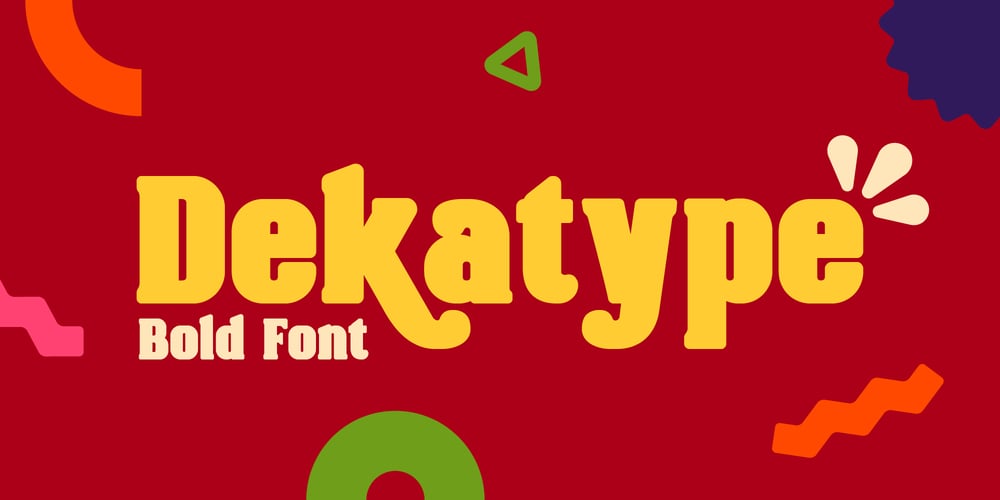
Dekatype Font Family was designed by Manzur Ghozaali and published by Ghozai Studio. Dekatype contains 6 styles and family package options. Datatype is a font designed to have a bold and prominent appearance that attracts attention. Despite its striking look, it maintains a friendly feel with rounded shapes and distinctive tails on some letterforms. This font can be accessed through the OpenType feature.Dekatype offers six styles, ranging from regular to black, providing a diverse array of options for creative design. It’s ideal for headlines, posters, logos, branding, signage, or any other design needs that require a strong visual impact.